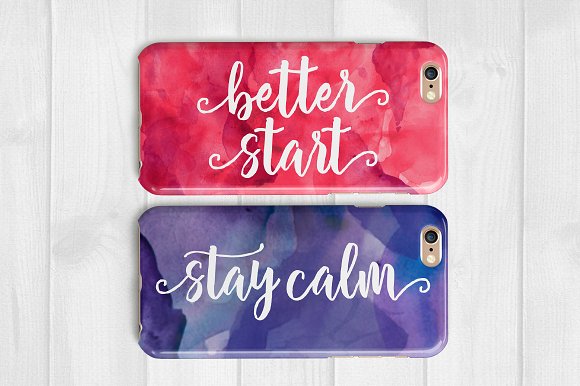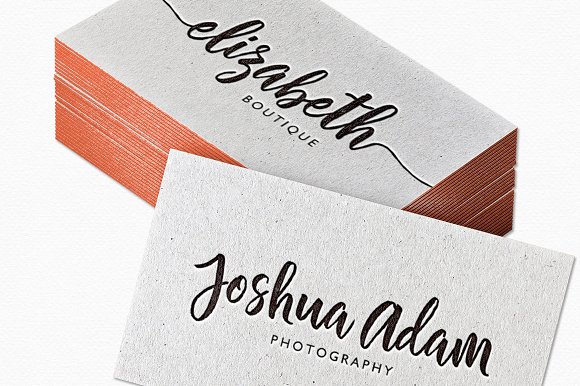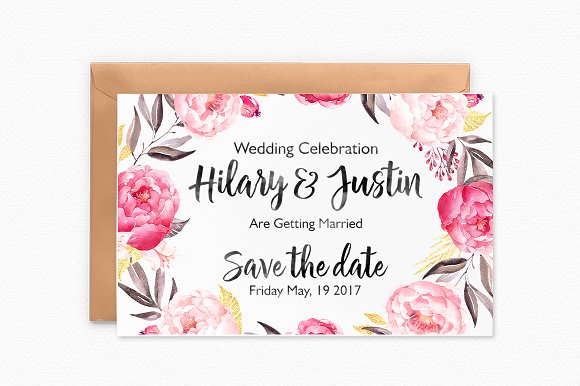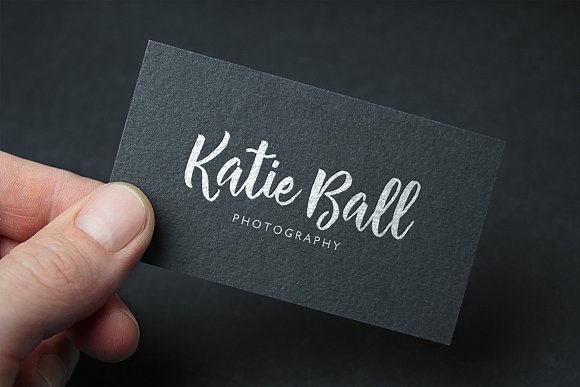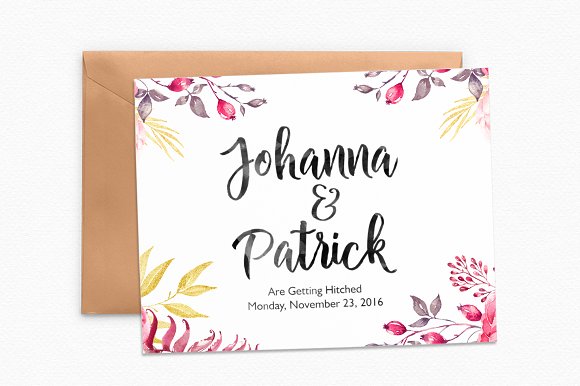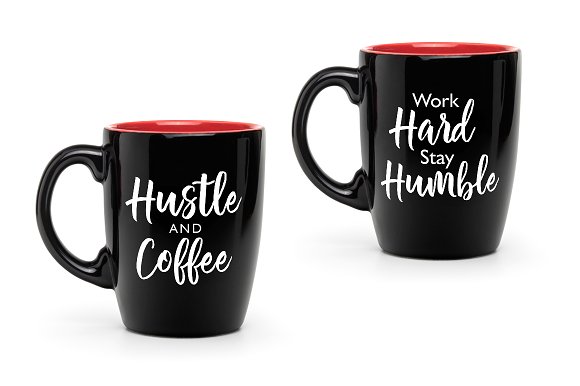
Discover the Charming Chamelia Font: A Handwritten Gem by Area Type
In the world of typography, fonts play a crucial role in conveying messages, expressing emotions, and adding personality to designs. Among the numerous fonts available, Chamelia stands out as a beautiful handwritten font created by Area Type. In this article, we’ll delve into the world of Chamelia, exploring its features, uses, and what makes it a favorite among designers and crafters.
What is Chamelia Font?
Chamelia is a handwritten font designed by Area Type, a renowned font foundry known for creating unique and high-quality typefaces. Chamelia is a testament to the foundry’s commitment to crafting fonts that are both aesthetically pleasing and highly functional. This font is characterized by its elegant, cursive strokes, and a warm, inviting feel that makes it perfect for a wide range of design applications.
Features of Chamelia Font
So, what makes Chamelia font so special? Here are some of its key features:
- Handwritten style: Chamelia boasts a beautiful, handwritten style that adds a personal touch to any design.
- Elegant strokes: The font features elegant, cursive strokes that give it a sophisticated and refined look.
- Warm and inviting: Chamelia’s warm and inviting feel makes it perfect for designs that require a friendly and approachable tone.
- Highly legible: Despite its elegant style, Chamelia is highly legible, making it suitable for body text and other long-form content.
Uses of Chamelia Font
Chamelia’s versatility makes it an excellent choice for a wide range of design applications, including:
- Branding and logos: Chamelia’s unique style makes it perfect for creating custom logos and brand identities.
- Invitations and greeting cards: The font’s elegant and cursive strokes make it ideal for creating beautiful invitations and greeting cards.
- Packaging design: Chamelia can add a touch of sophistication and elegance to packaging designs, making products stand out on store shelves.
- Digital and print media: The font’s high legibility makes it suitable for use in digital and print media, including body text, headings, and titles.
Why Designers and Crafters Love Chamelia Font
So, why do designers and crafters love Chamelia font? Here are some reasons:
- Unique style: Chamelia’s handwritten style sets it apart from other fonts, making it a great choice for designers looking to add a personal touch to their work.
- Ease of use: The font’s high legibility and versatility make it easy to use in a wide range of design applications.
- Emotional connection: Chamelia’s warm and inviting feel helps create an emotional connection with the audience, making it perfect for designs that require a friendly and approachable tone.
In conclusion, Chamelia font is a beautiful handwritten font created by Area Type that offers a unique blend of elegance, sophistication, and warmth. Its versatility, high legibility, and emotional connection make it a favorite among designers and crafters. Whether you’re looking to create a custom logo, invitation, or packaging design, Chamelia is an excellent choice that is sure to add a touch of personality to your work.